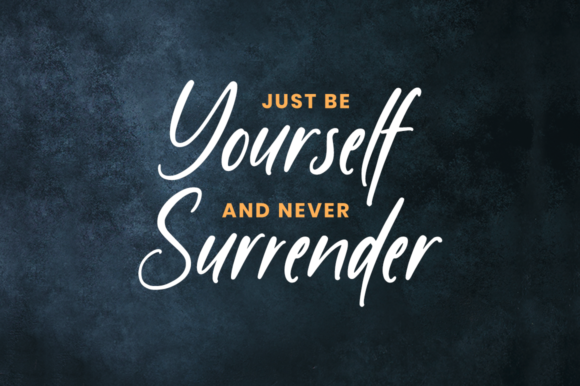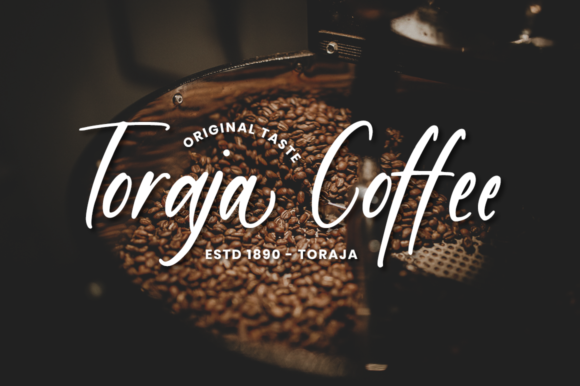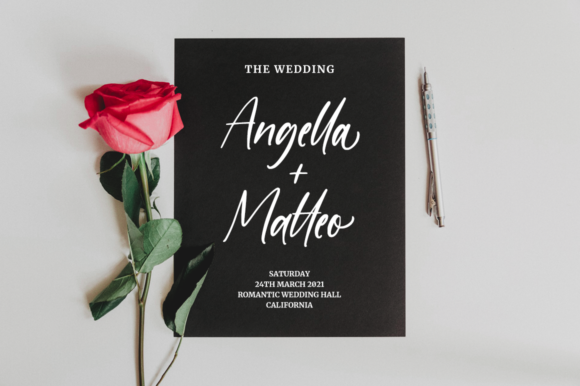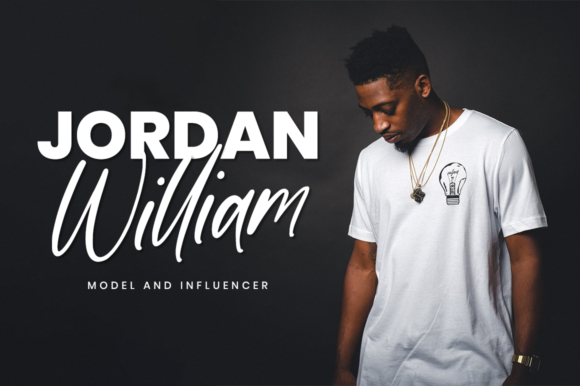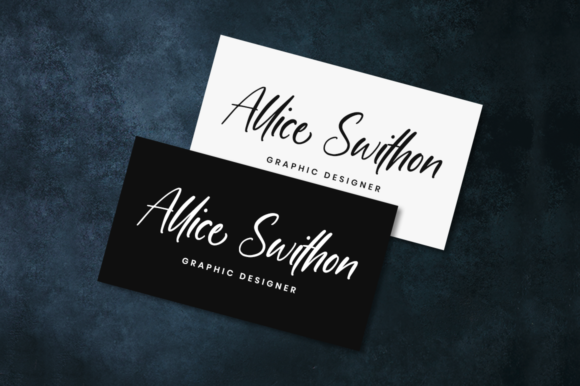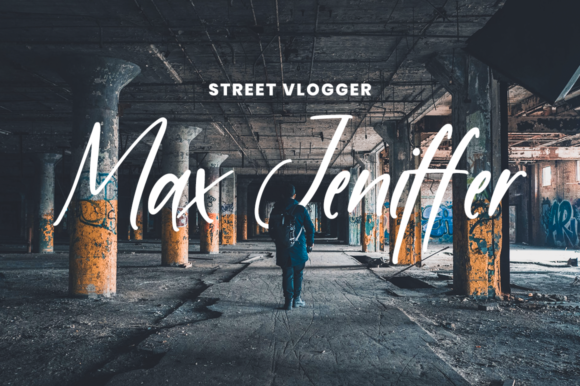
Discover the Unique Charm of Buffallo Font: Elevate Your Designs with Style
In the world of typography, fonts play a crucial role in conveying messages, expressing emotions, and creating lasting impressions. For designers and crafters, finding the perfect font can be a daunting task, especially when looking for something that stands out from the crowd. This is where Buffallo Font comes into play – a unique and interesting handwritten font that is about to revolutionize your design game.
The Versatility of Buffallo Font
What sets Buffallo Font apart is its incredible versatility. This font is designed to fit a wide pool of designs, making it an ideal choice for various projects, from elegant branding and packaging to creative digital content and handmade crafts. Whether you’re working on a sophisticated business card or a playful greeting card, Buffallo Font adapts seamlessly, adding a touch of personality and style to your work.
Example of Buffallo Font in use
Fall in Love with Its Stylish Look
Buffallo Font boasts an incredibly stylish look that will capture your heart. Its handwritten charm brings a sense of warmth and authenticity to your designs, making them more relatable and engaging. The font’s unique character and elegant flow make it perfect for designs that require a personal touch, such as invitations, quotes, and creative storytelling.
One of the standout features of Buffallo Font is its PUA (Private Use Area) encoding. This means that accessing all the glyphs and swashes is incredibly easy. With PUA encoding, you can unlock a world of creative possibilities, effortlessly incorporating alternate characters, ligatures, and swashes into your designs. This feature is especially useful for designers who want to add a unique flair to their work without the hassle of complicated font management.
Use Buffallo Font to Create Spectacular Designs
With Buffallo Font, the creative possibilities are endless. Here are just a few ideas to get you started:
• Branding and Packaging: Use Buffallo Font to create eye-catching logos, labels, and packaging that reflect your brand’s personality.
• Digital Content: Add a personal touch to your blog posts, social media graphics, and email newsletters with this charming font.
• Handmade Crafts: Perfect for crafters, Buffallo Font can be used to create beautiful handmade cards, gift tags, and other paper crafts.
• Stationery and Invitations: Make a lasting impression with elegant invitations, business cards, and stationery featuring Buffallo Font.
Tips for Getting the Most Out of Buffallo Font
To truly make Buffallo Font shine in your designs, consider the following tips:
• Experiment with Sizes: Play around with different font sizes to create visual hierarchy and emphasize key messages.
• Mix and Match: Combine Buffallo Font with other fonts to create striking contrasts and add depth to your designs.
• Utilize Swashes: Take advantage of the font’s swashes and glyphs to add a decorative touch to your text.
Buffallo Font is more than just a font – it’s a design companion that can elevate your work to new heights. Its unique blend of style, versatility, and ease of use makes it an invaluable asset for designers and crafters alike. Whether you’re looking to add a personal touch to your handmade crafts or create stunning digital content, Buffallo Font is sure to inspire your creativity and help you produce spectacular designs.